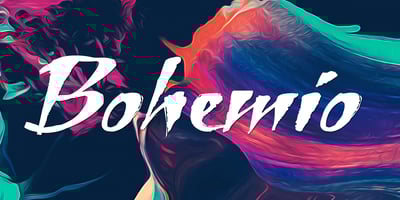
Bohemio Font Family was designed by Gert Wiescher and published by Wiescher Design. Bohemio contains 1 styles and family package options. Bohemio was designed in memory of Gunter Böhmer, an artist famous for his many book covers of the 1950s in Germany. The cover I took as an inspiration for this font is that of a book called Stiller (by Max Frisch). Bohemio sounds similar to “Böhmer” (which means the one from Bohemia) and it is also an alliteration to artisty. I thought “Bohemio” to be a nice name for this very strong, almost expressionist design. Yours very artsy craftsy Gert Wiescher